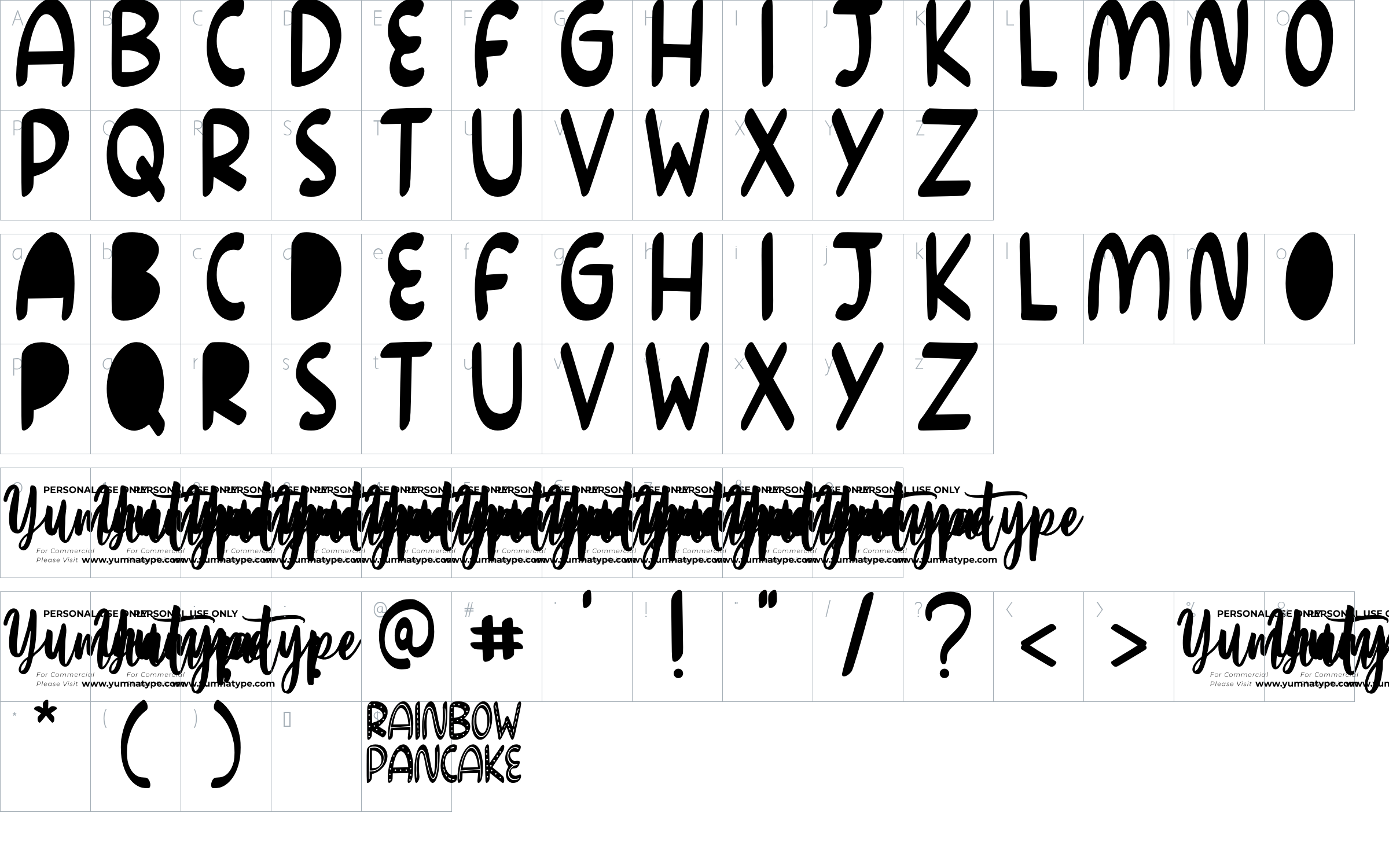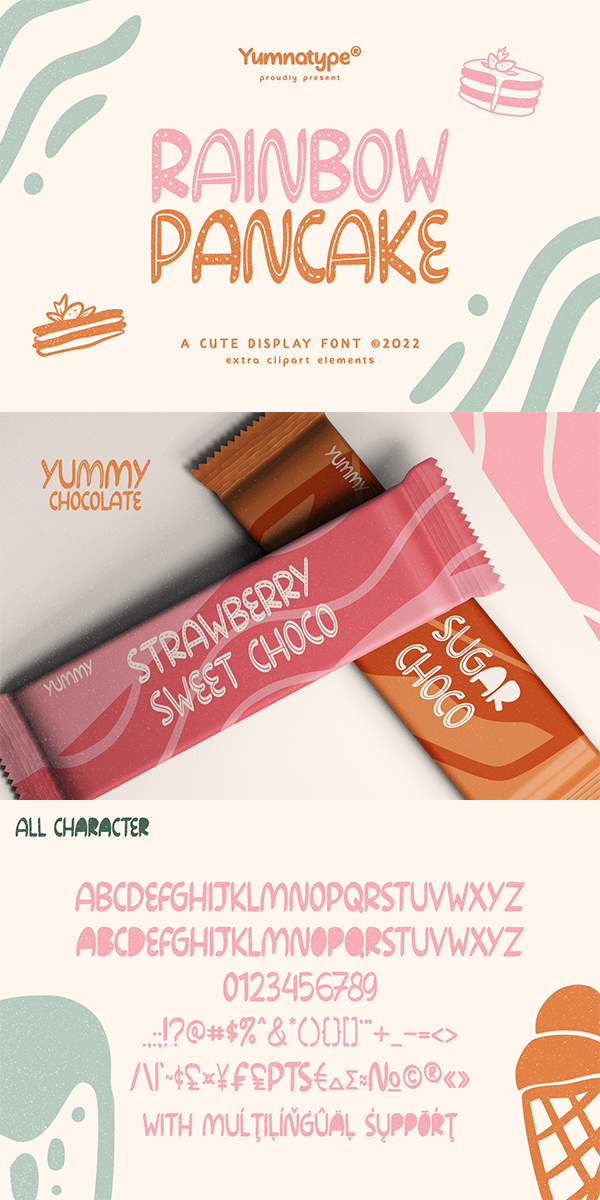
Rainbow Pancake Font
About Rainbow Pancake
Rainbow Pancake is a display font that generates fun and cute feels. What’s particularly nice about this font is the readability and the weight that bring strength when you apply it. This font makes designing look easy to do. As a special extras you will get 15 illustrations that you can to beautify your designs.
-Uppercase and lowercase
It is can be used on your branding, logos, social media quotes, stickers, posters, wall art, merchandise, social media, and many more. Get more inspiration about how to use it by seeing the font preview.